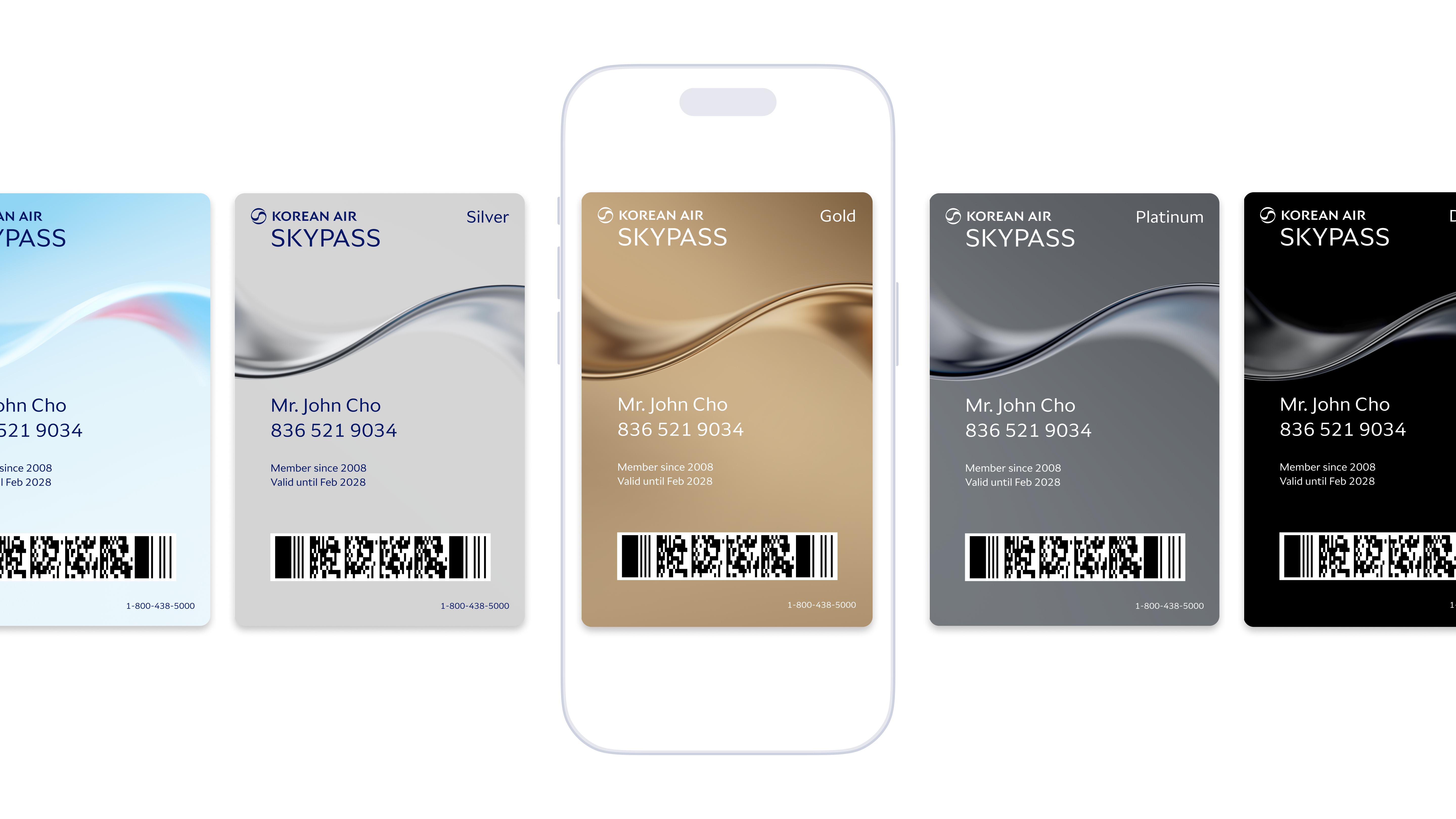
Korean Air Sans
A Custom Font Family for Korean Air
Korean Air Sans
A Custom Font Family for Korean Air
To unify Korean Air’s visual identity across every touchpoint, we created a custom humanist typeface that pairs clarity with character. Its minimalist forms with subtle traditional Korean calligraphic details reflect the brand’s fusion of heritage and modernity.